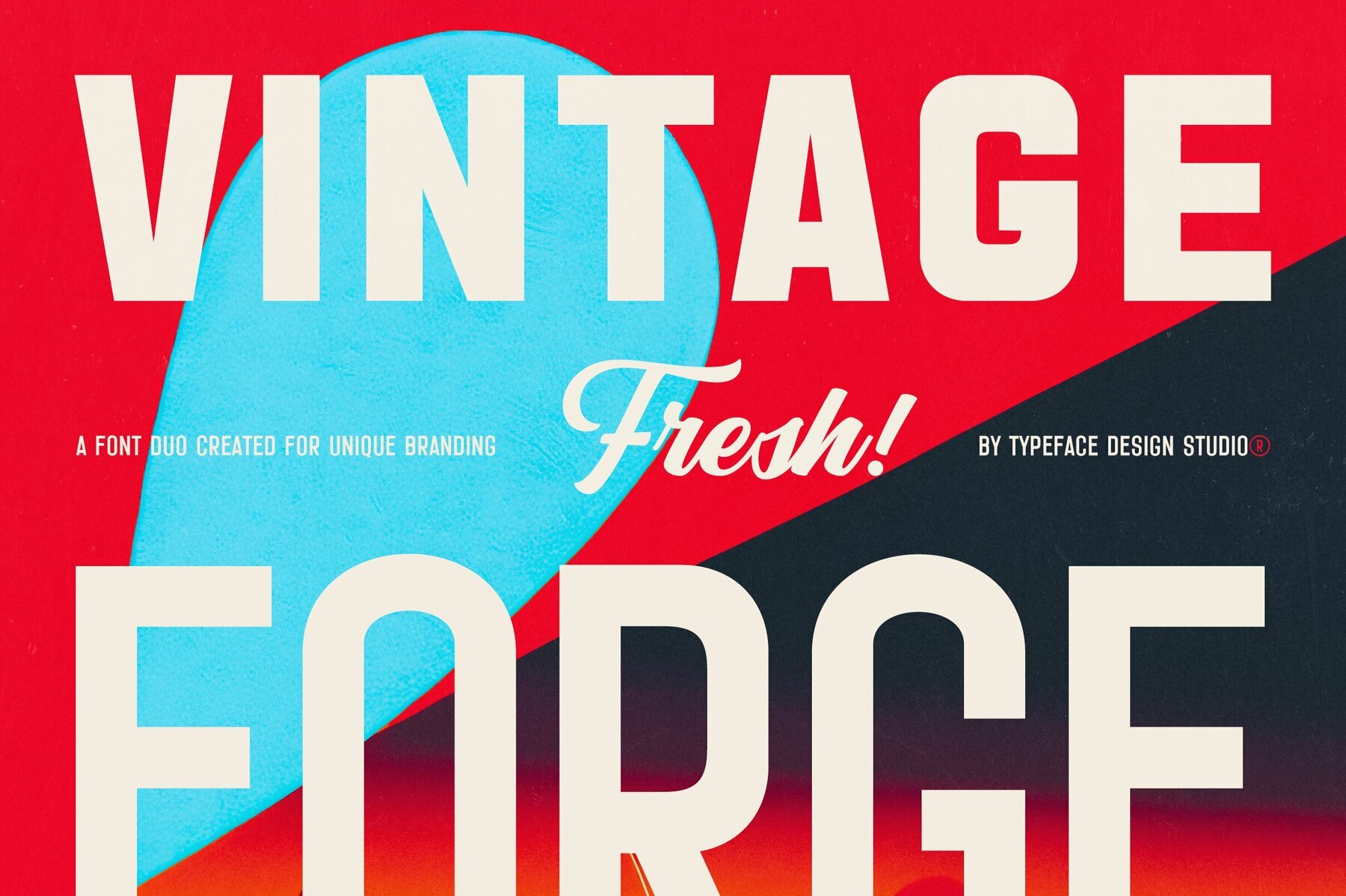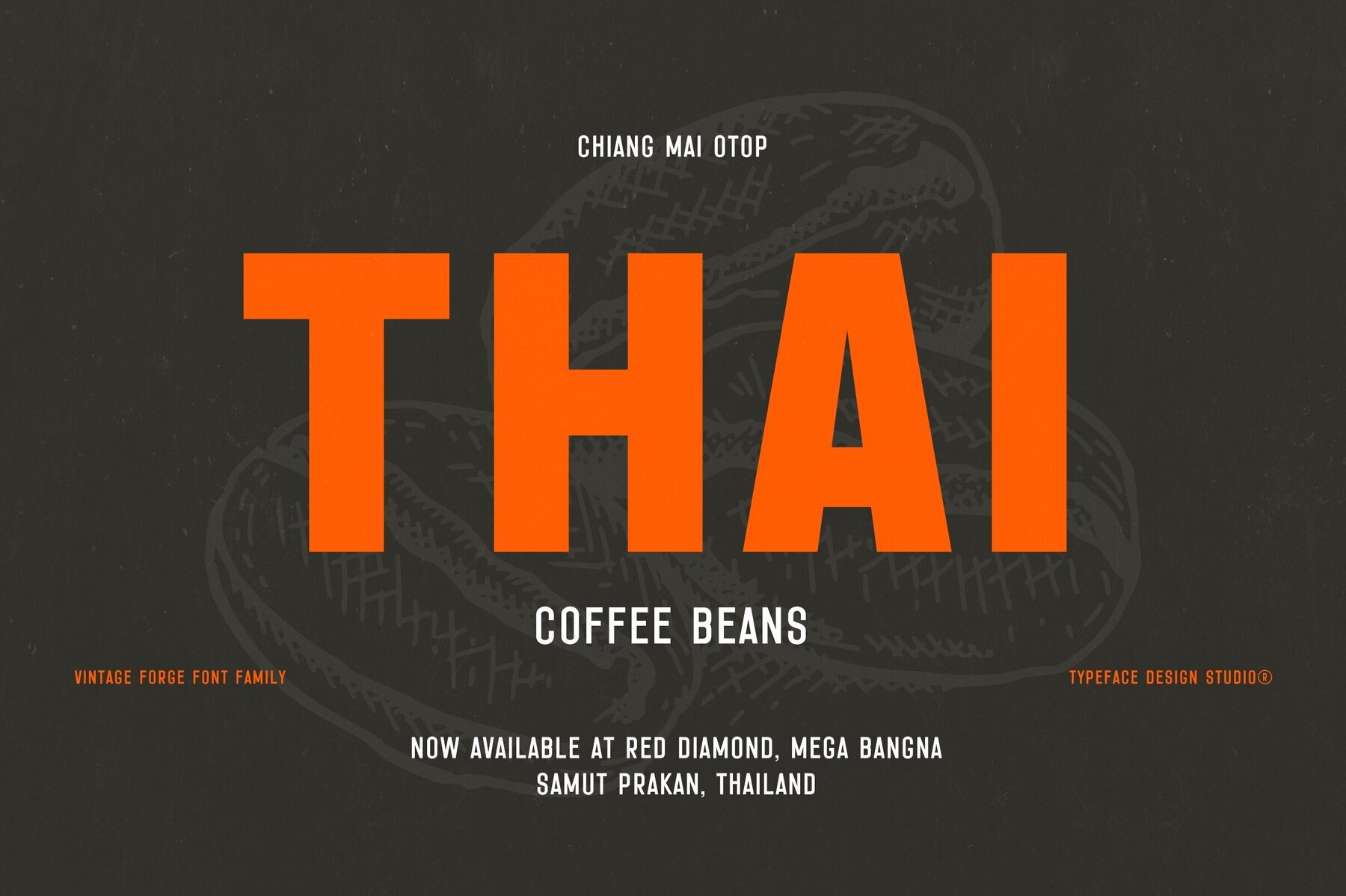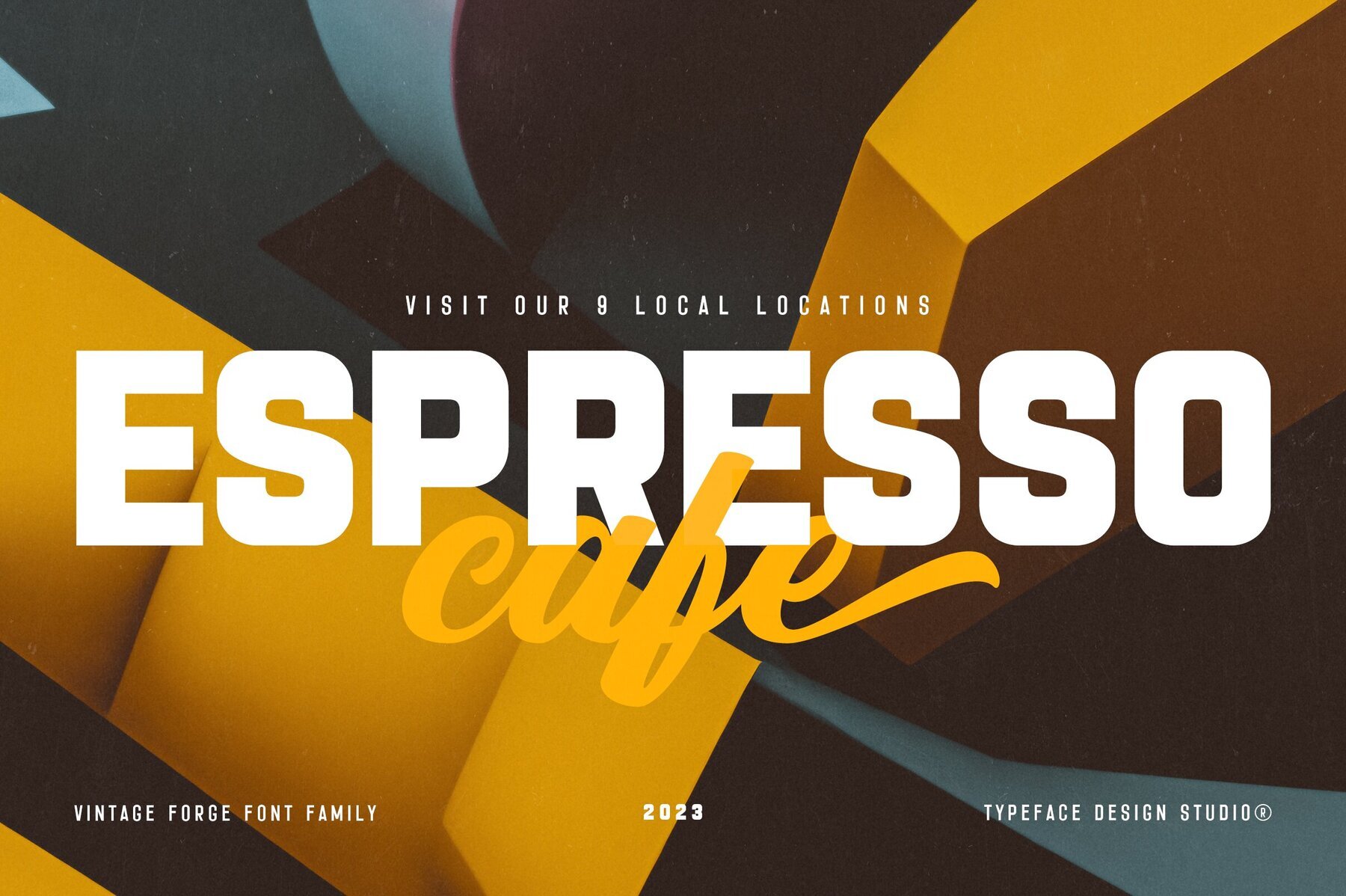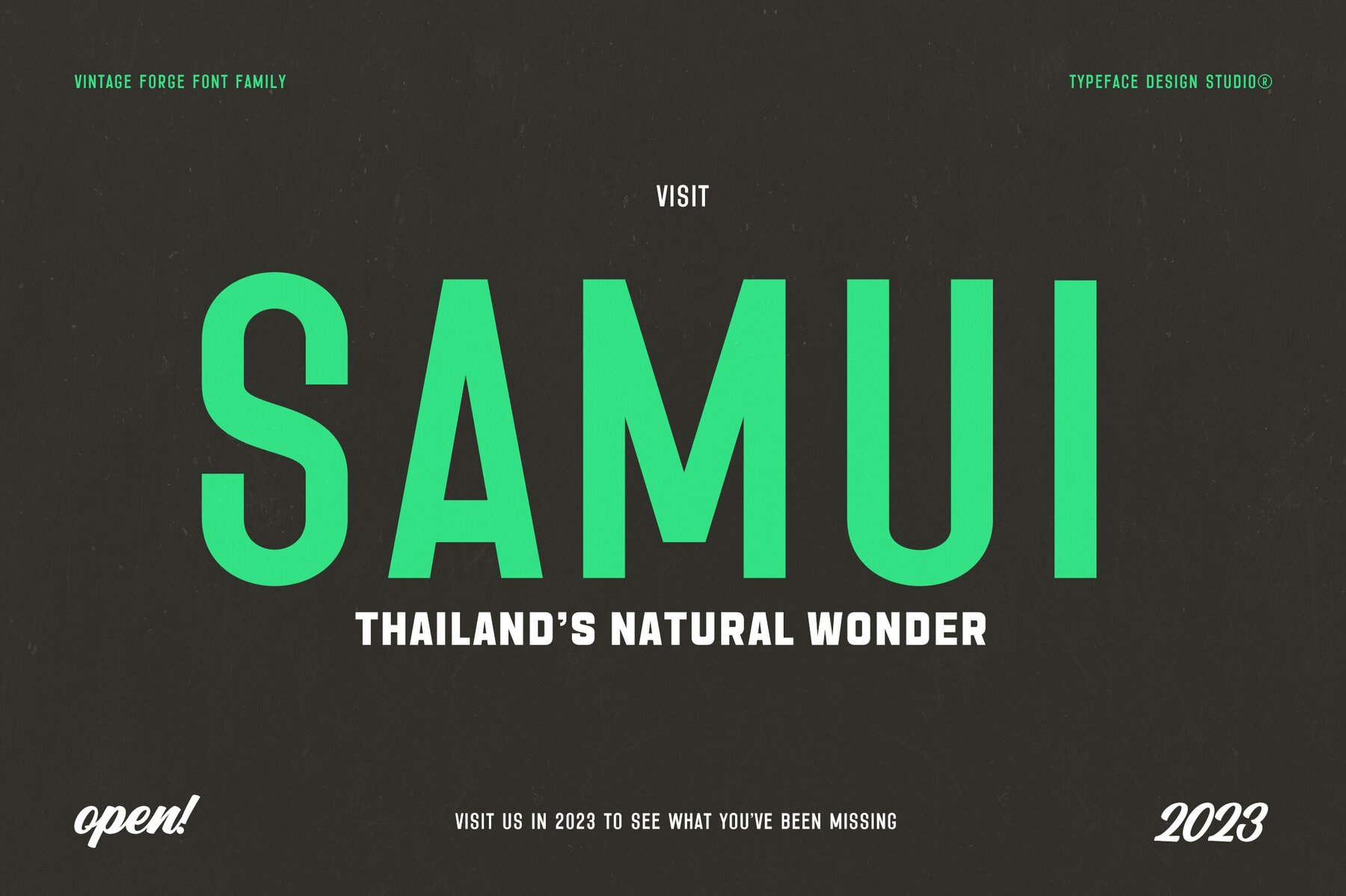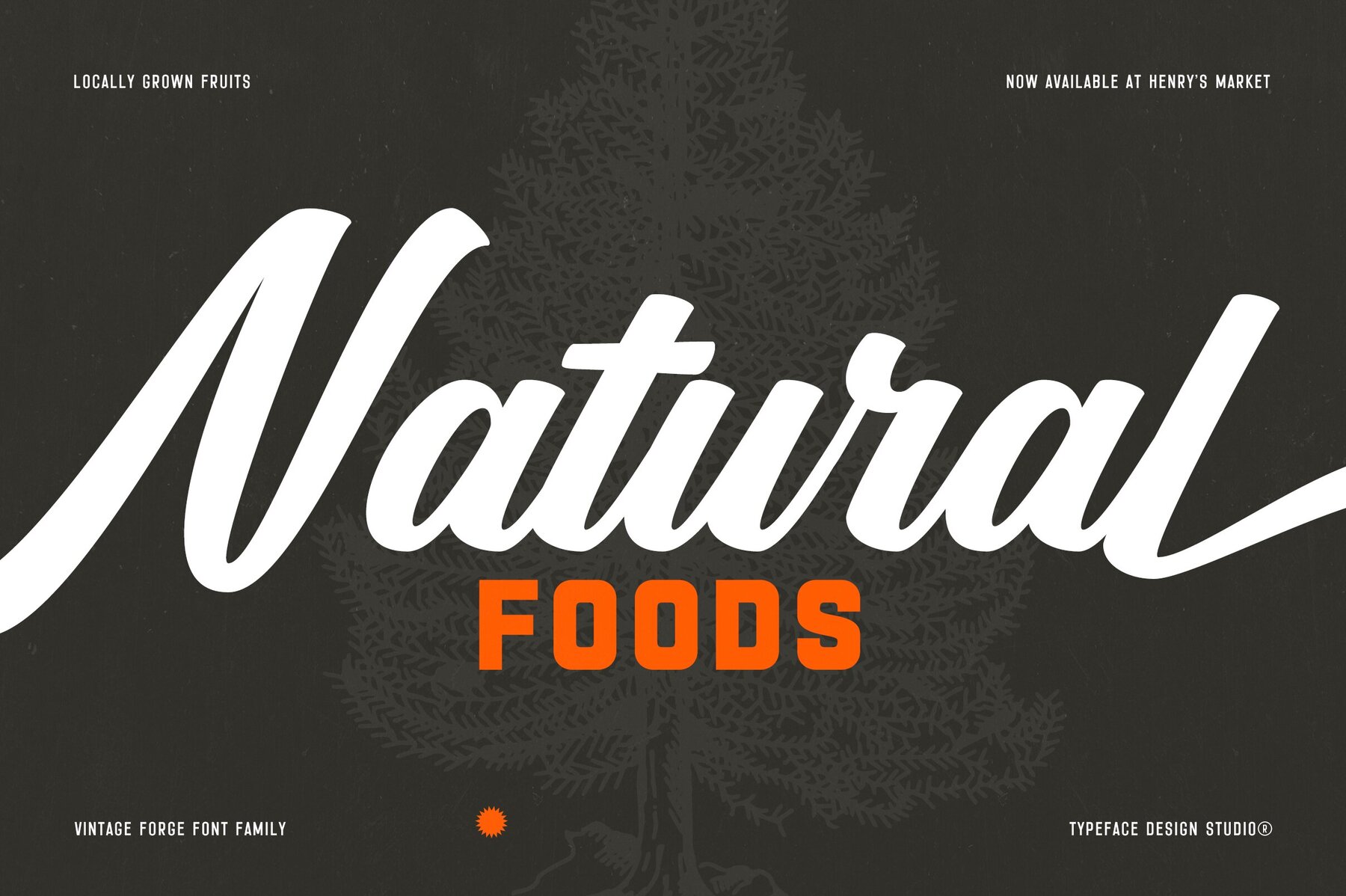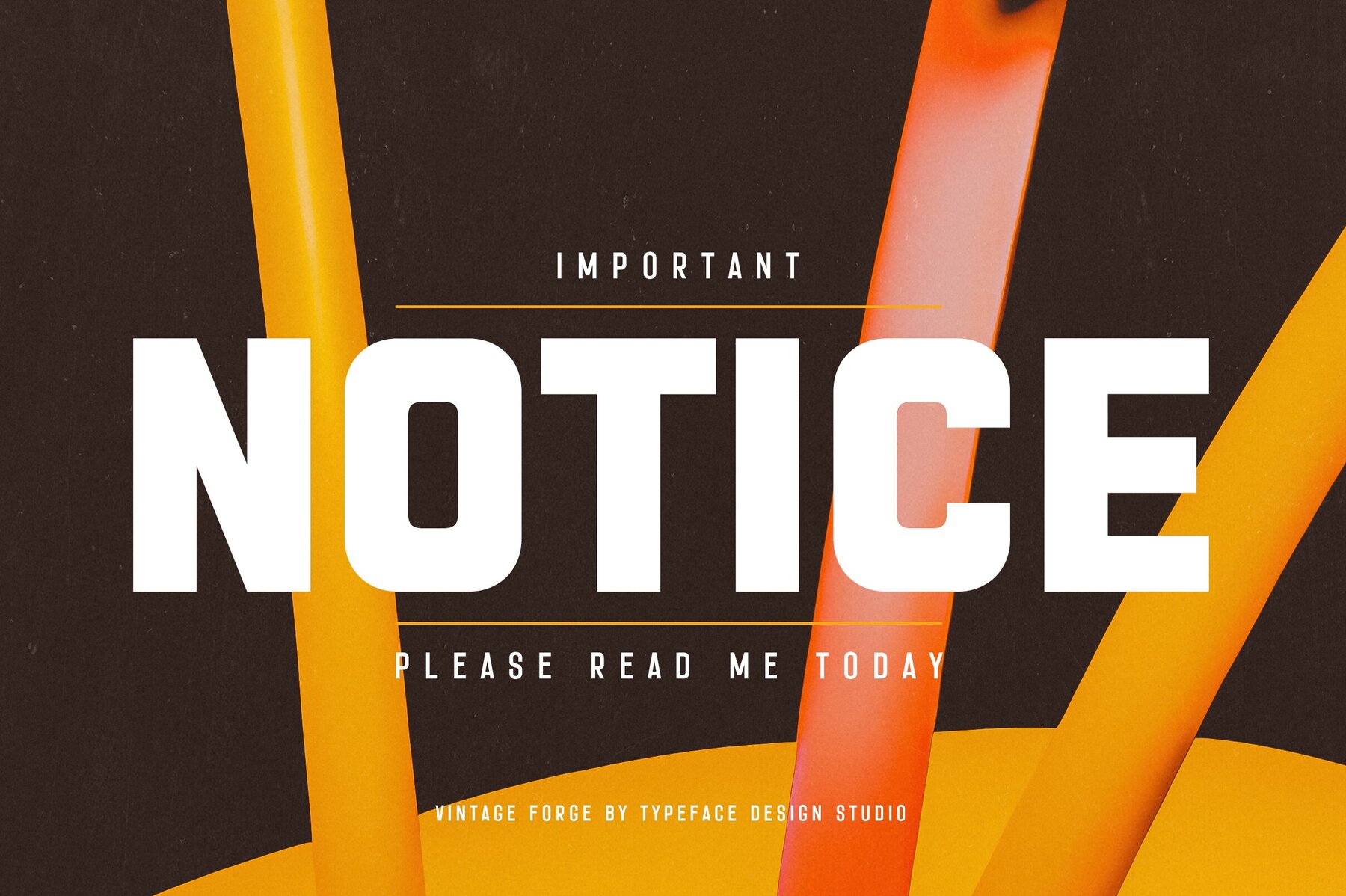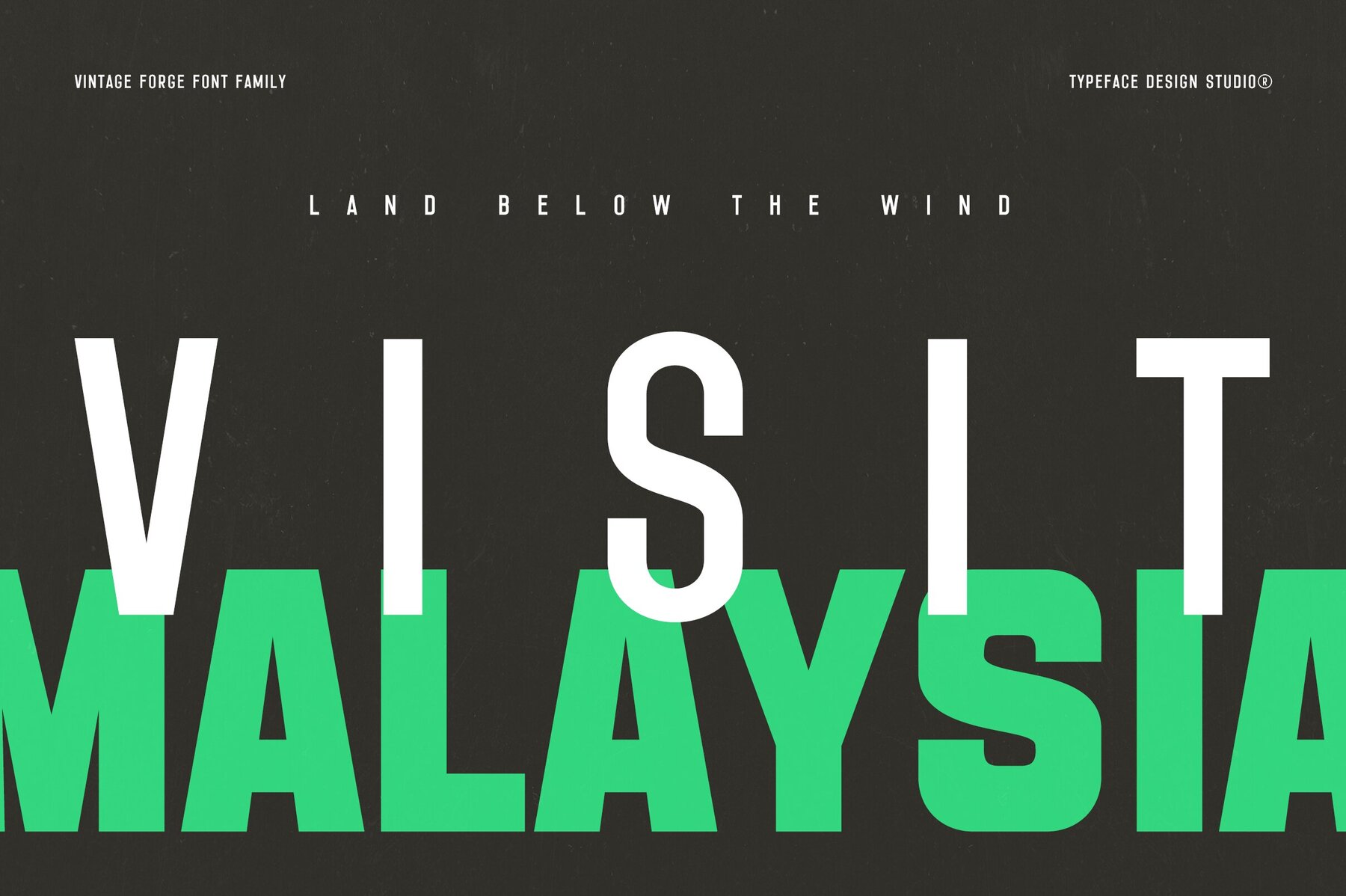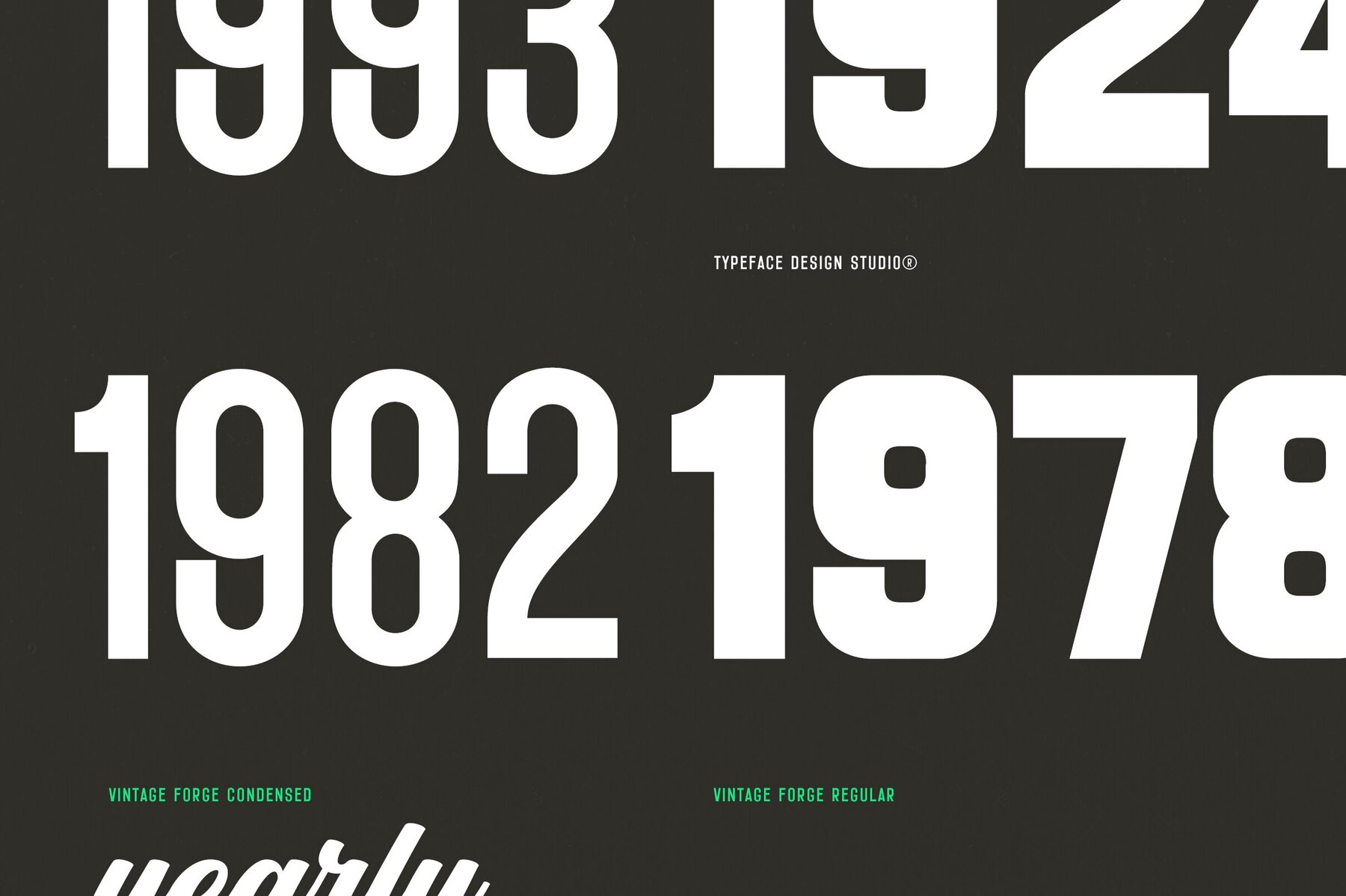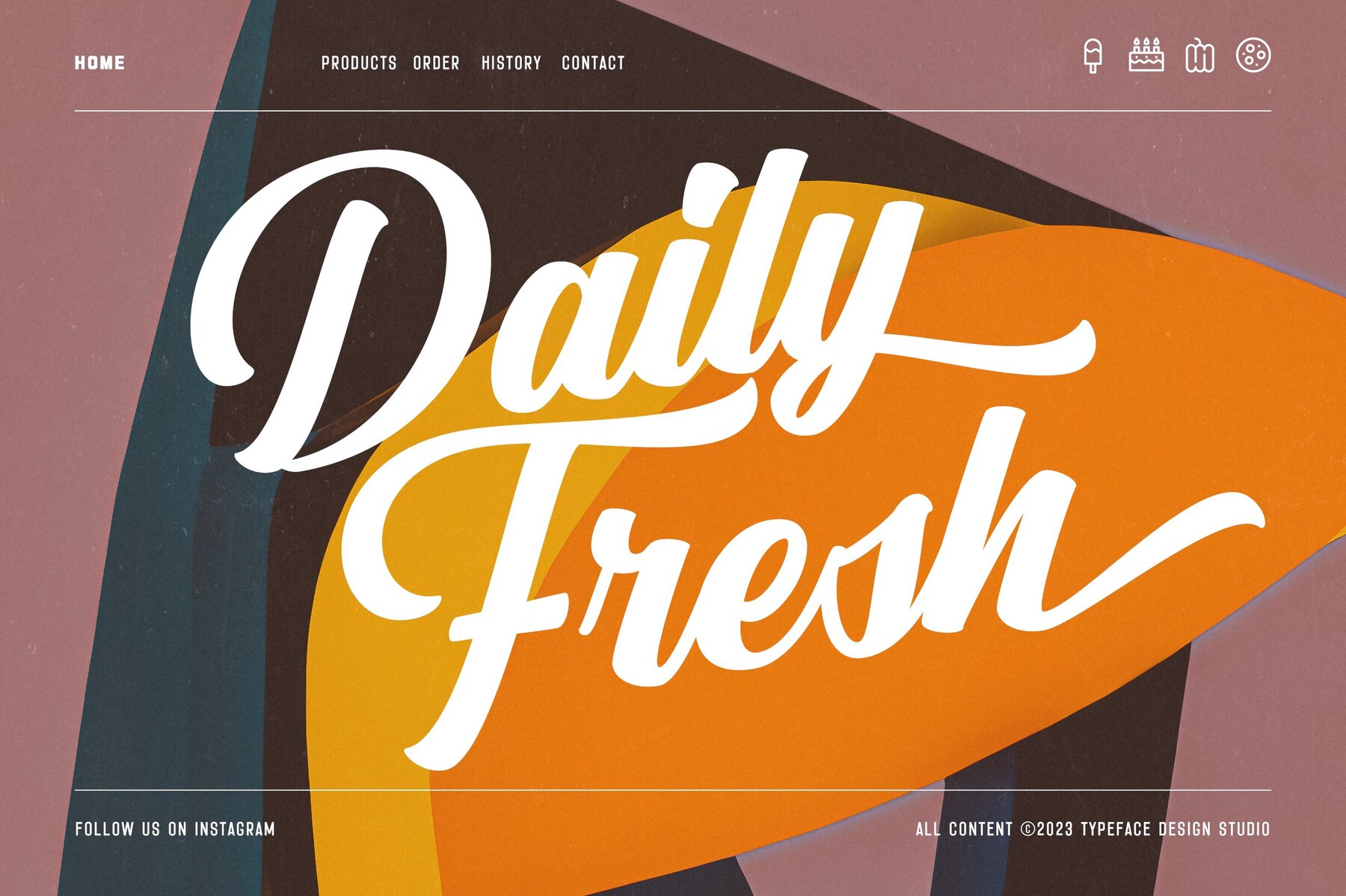
Vintage Forge Font
Typography enthusiasts will appreciate the distinct character of Vintage Forge, a versatile font family tailored for headlines and social media. Featuring three styles—Regular, Condensed, and Script—this collection offers a plethora of design options. Choose the Regular style for bold statements, opt for Condensed characters to introduce simplicity, or select the Script version for a vintage flare. Whether your focus is professionalism or creativity, Vintage Forge is designed to cater to a diverse range of projects.Vintage Forge: A Typographic Gem